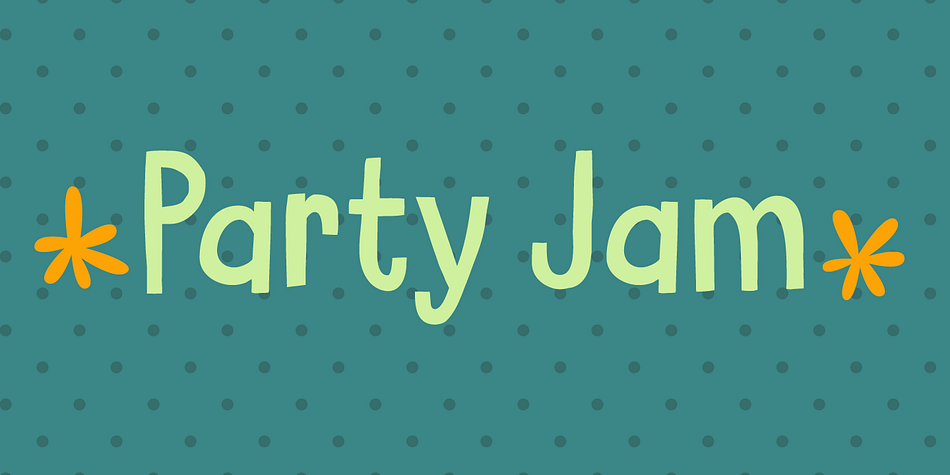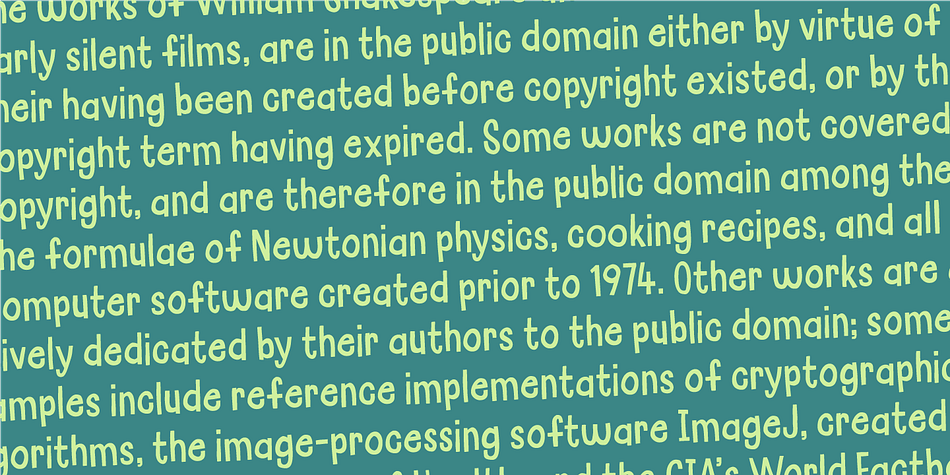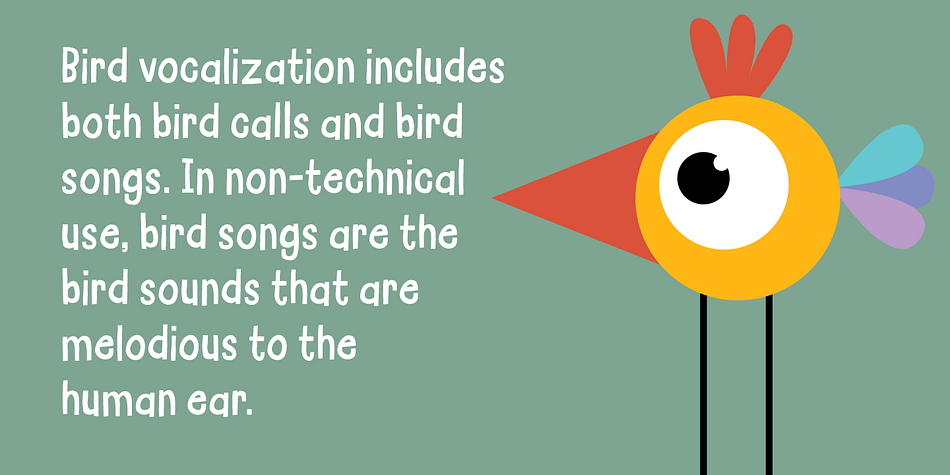
Designed by Jakob Fischer, Party Jam is a hand drawn and kids font family. This typeface has two styles and was published by Pizzadude.dk.
Party Jam was originally drawn by hand, and then digitally cleaned up. However, in this proces I was very much aware to keep the “randomness” from the original.
In the proces of making this font, I always had a use for children’s books or comics in mind, but I would think that the font would go very well with eco stuff, packaging and restaurant menus. Don’t be afraid to use it at very small sizes, because it is super legible. Don’t even be afraid to use it at larger sizes either, because it just look darn good! :)